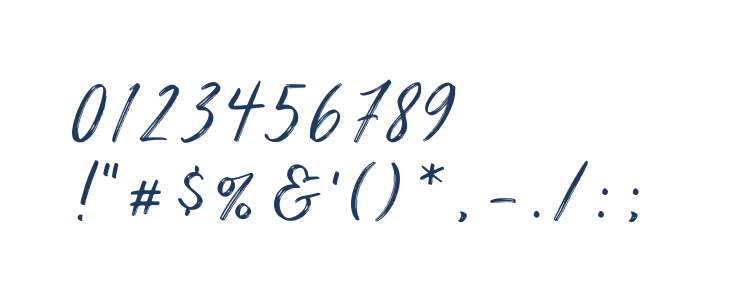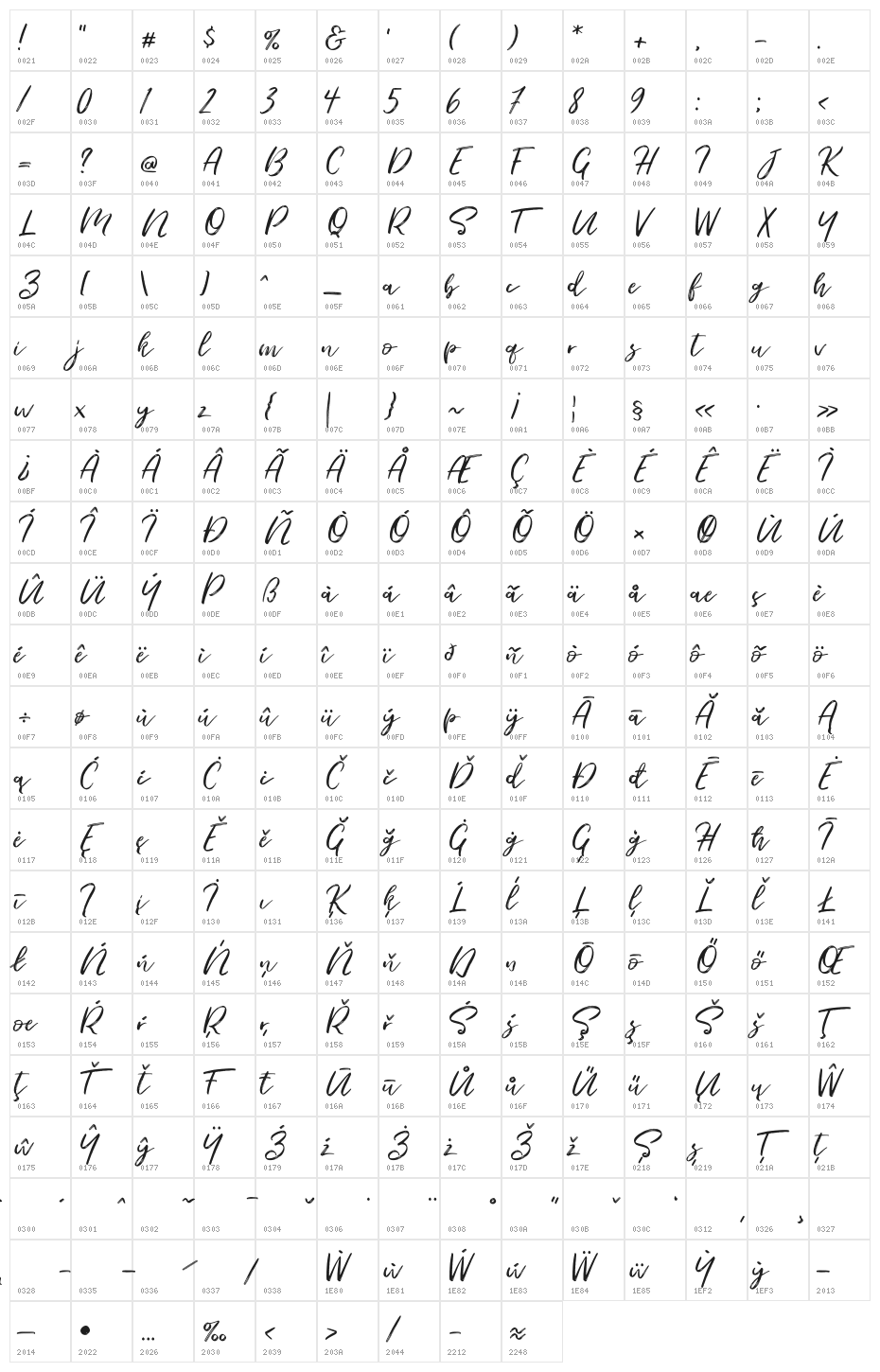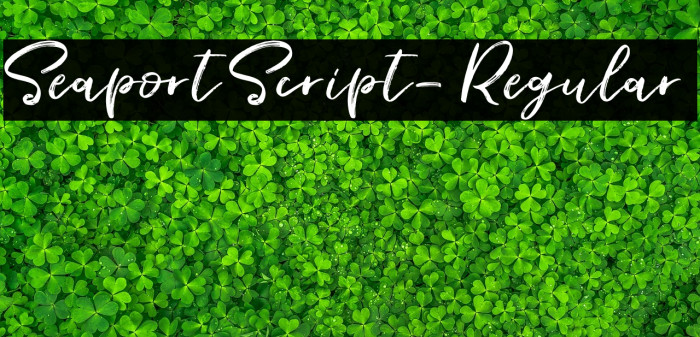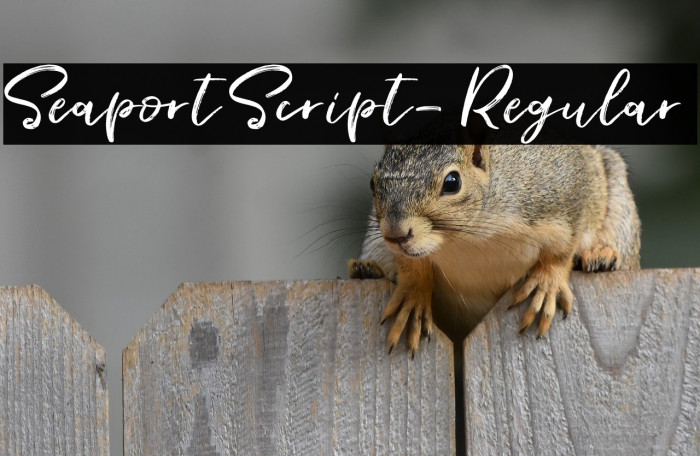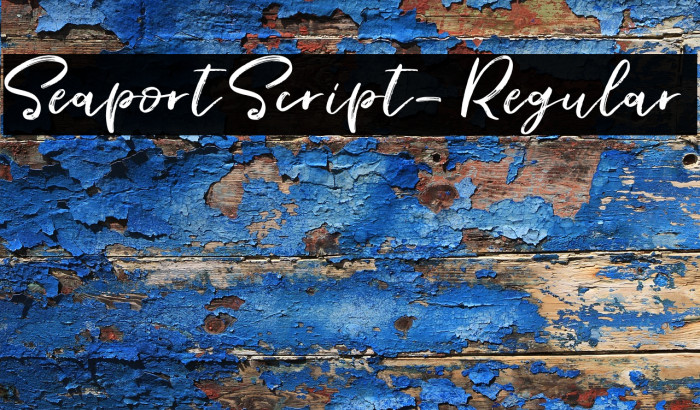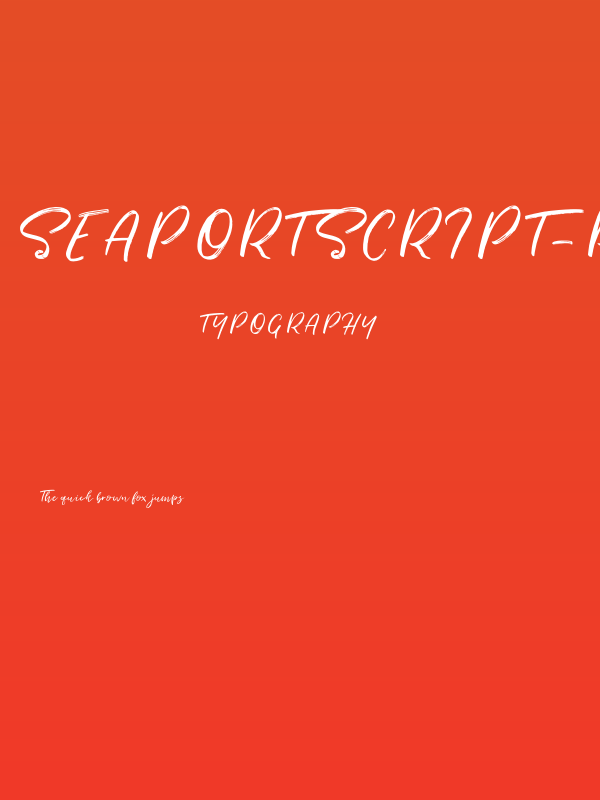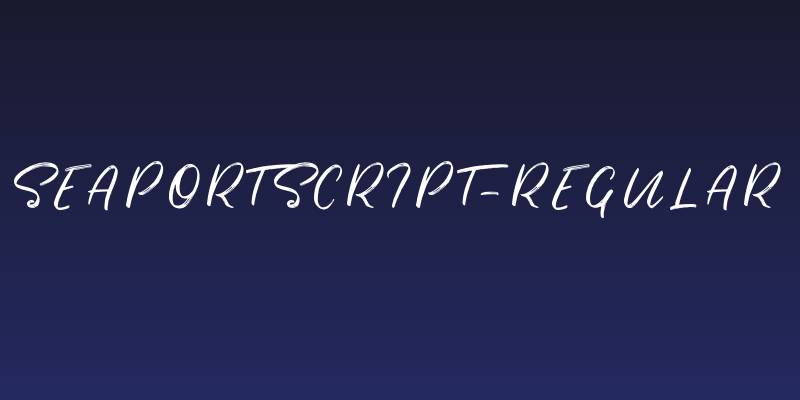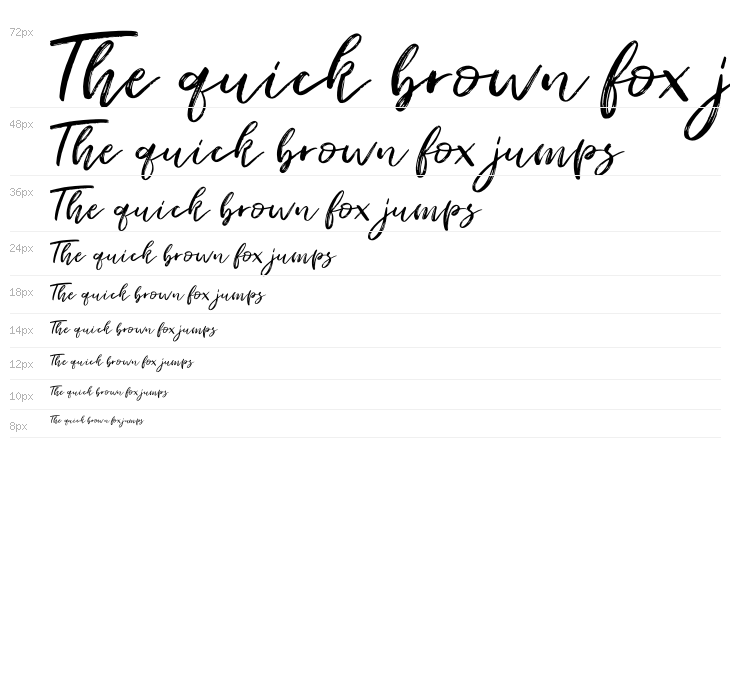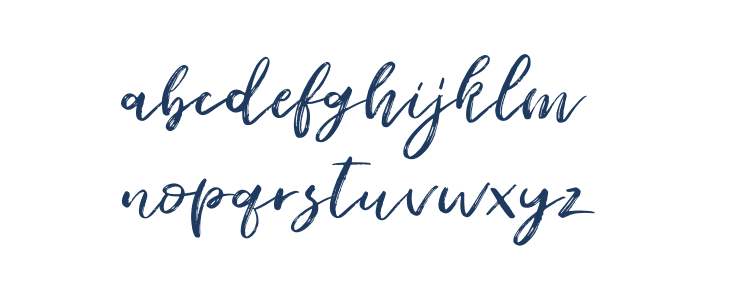
SeaportScript-Regular Font
Introduction of Seaport Font here is another gorgeous and artistical typeface that is known as Seaport font, designed and shared by a great type designer Fontforestry, who is a dominant name in the designing field. It is the first but extremely Wonderful.
| Caso d'uso | Logos, Headlines, Invitations |
| Progetti proposti | Ideal for branding, invitations, greeting cards, and creative projects that require a personal, artistic touch. |